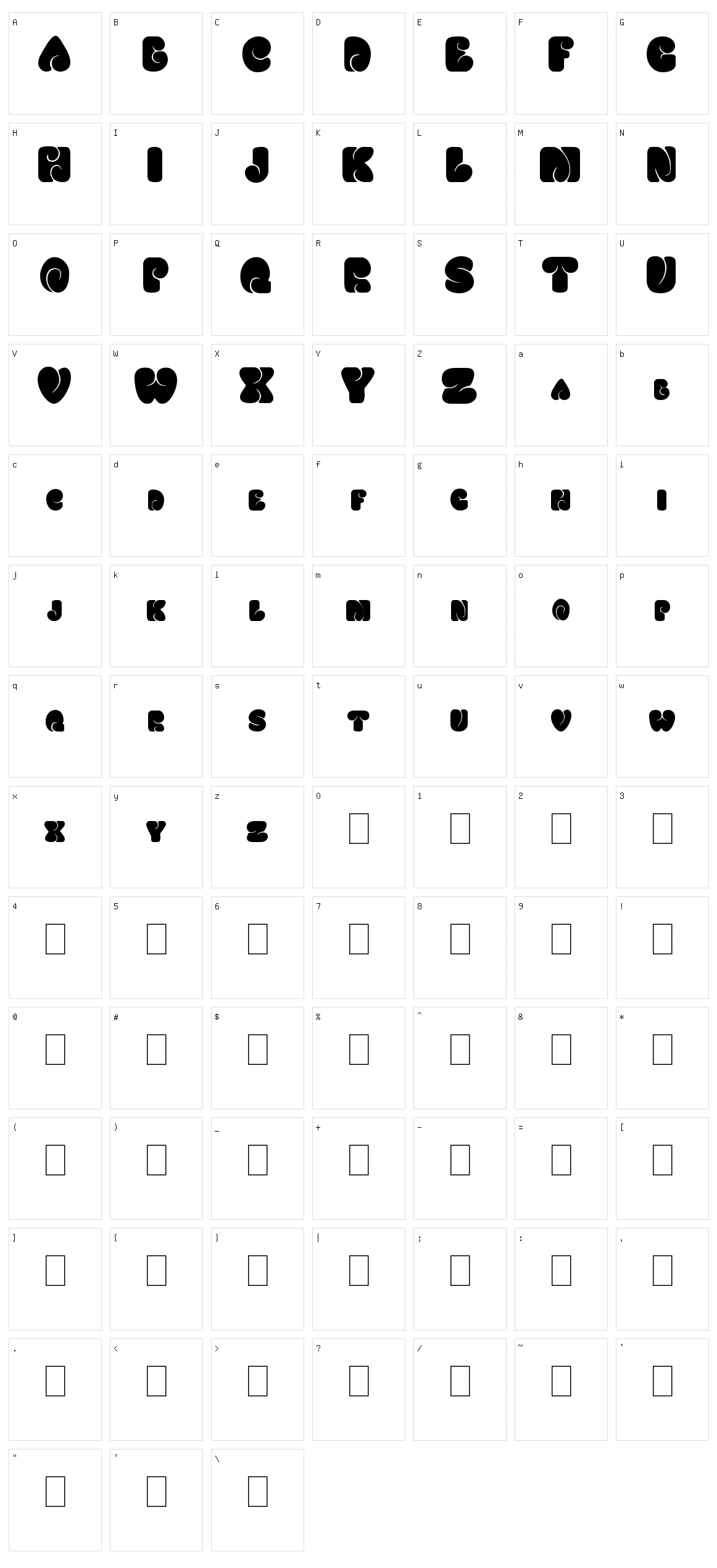
The free font Fatso Caps is carefully designed by Sam Wang, showcasing a thoughtful balance of creativity and usability and falls under the Groovy font style. When you download the ZIP file, it contains only 7.96 KB of font files, making it lightweight and quick to download. Please review the license details below to understand permitted usage and distribution rights. If license information is not available, we recommend using this font for personal projects only or contacting the author directly for commercial usage permissions.